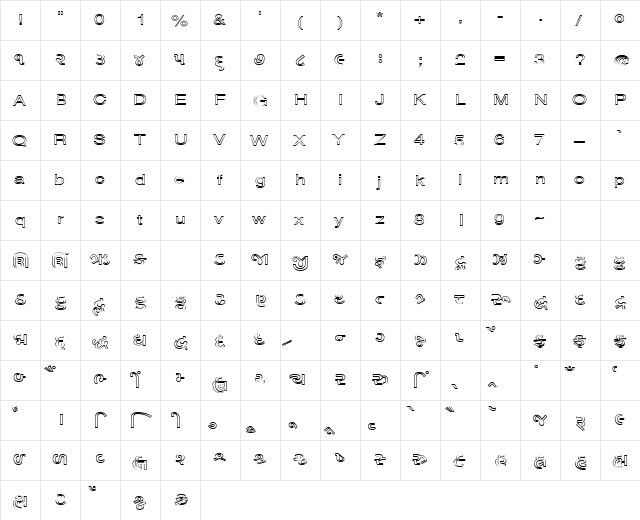
AkrutiOfficeRupal Normal Font Preview
AkrutiOfficeRupal Normal
Design Context for AkrutiOfficeRupal Typeface
AkrutiOfficeRupal offers clean, dependable letterforms without strong stylistic allegiance, making it a practical choice for designers who need flexibility.